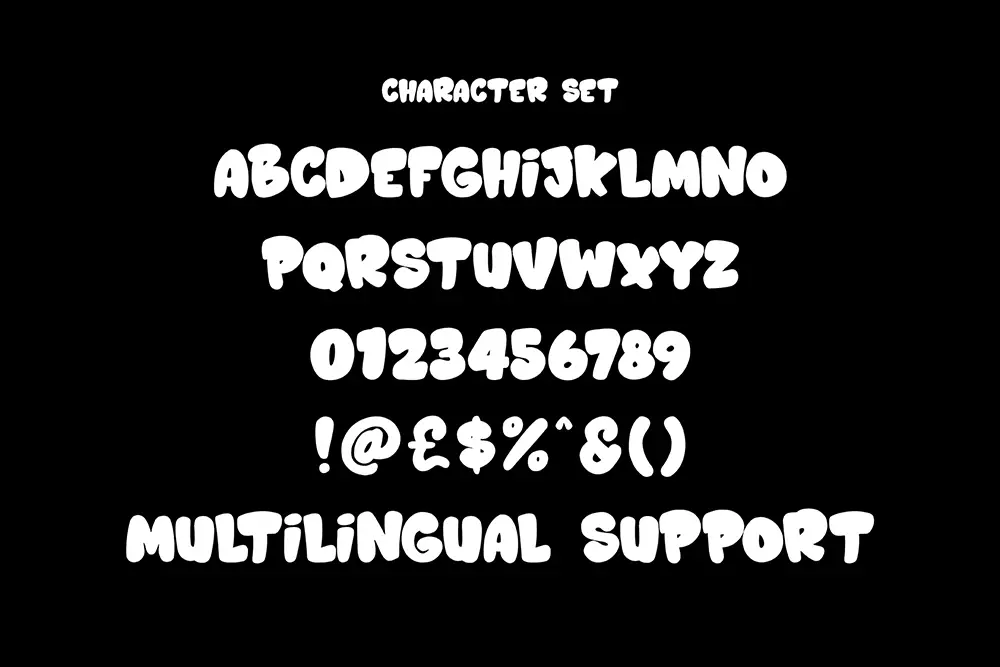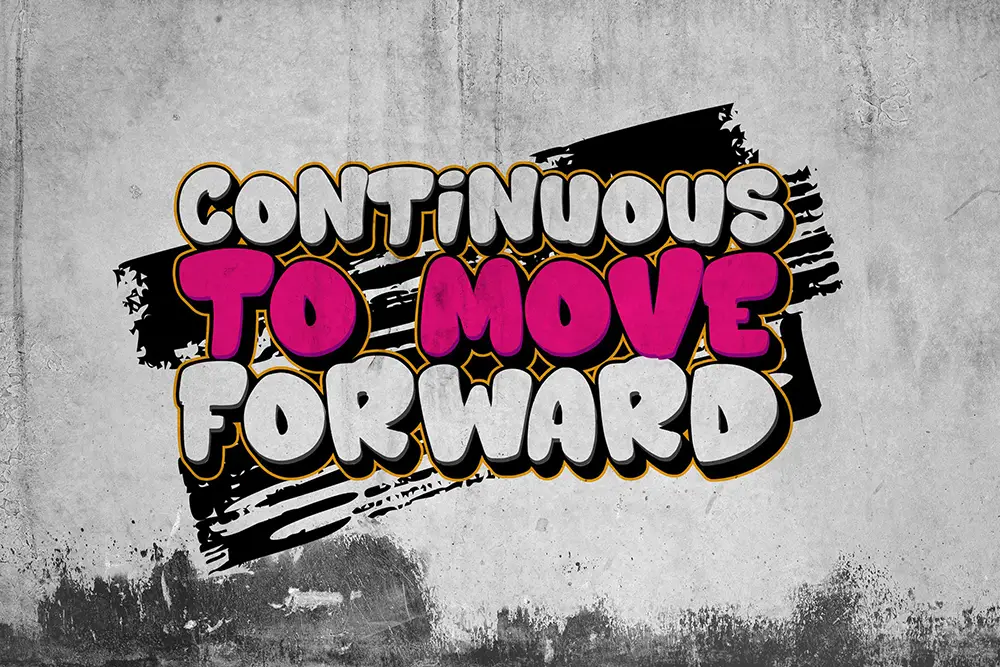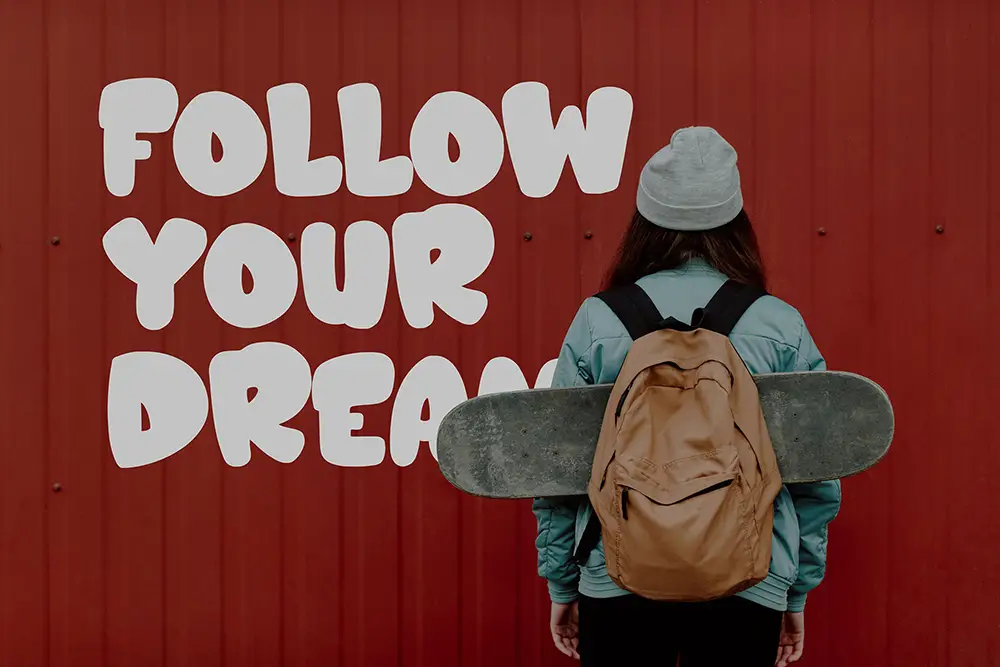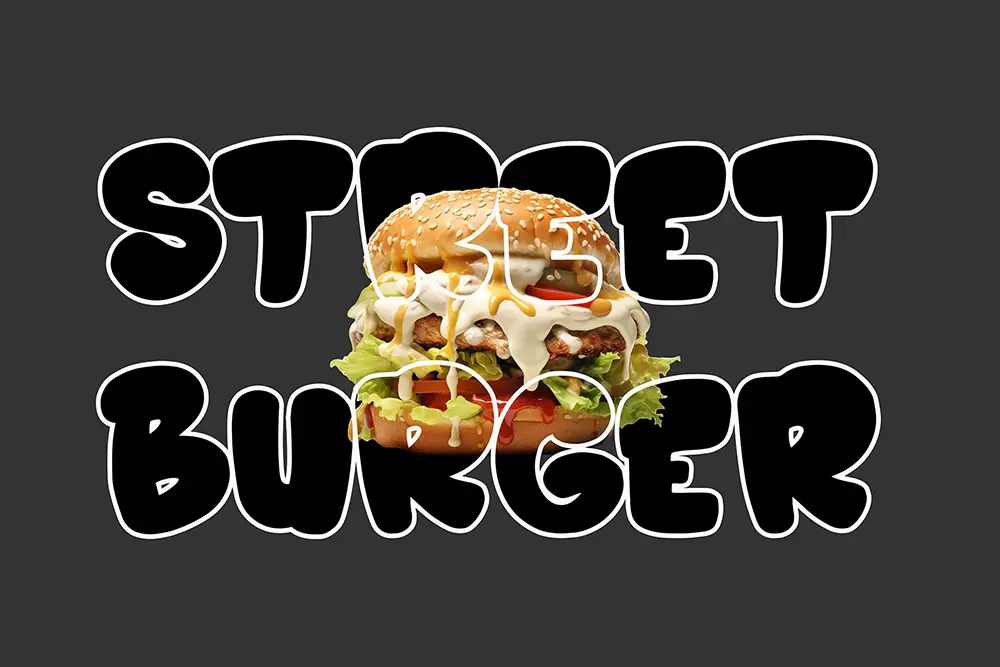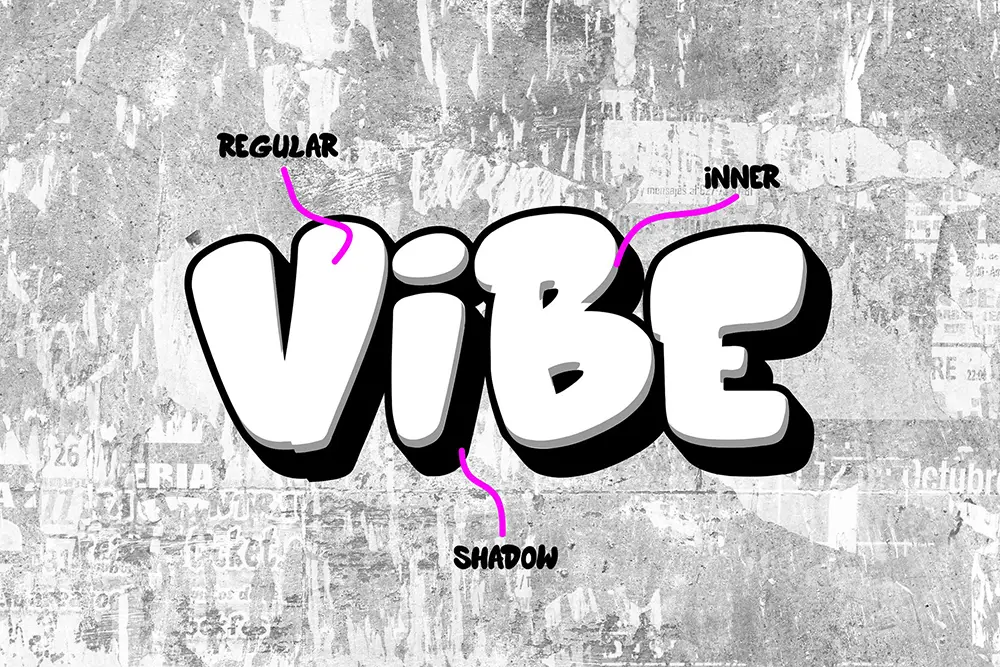
Rusted Vibe – Layered Graffiti Font for Bold Street Art Design
Typography is the heartbeat of urban design. Rusted Vibe – Layered Graffiti Font is built to bring raw energy, bold style, and layered creativity into your projects. With its unique three-layer system—Regular, Inner, and Shadow—this graffiti font gives designers the tools to create depth, vibrancy, and authentic street-inspired artwork.
This layered graffiti font isn’t just about letters; it’s about attitude. Perfect for posters, event flyers, music covers, and branding that demands attention, Rustic Vibe delivers the street-culture vibe in a professional, ready-to-use package.
Layered Graffiti Font with Raw Character
Graffiti is more than writing—it’s an art form that conveys rebellion, freedom, and creativity. Rustic Vibe captures this essence perfectly. As a layered graffiti font, it includes three versions: Rustic Vibe Regular, Rustic Vibe Inner, and Rustic Vibe Shadow. By combining these layers, you can build stunning 3D effects, highlights, and shadowed depth for maximum impact.
The all-caps design ensures boldness and uniformity, while multilingual support makes Rustic Vibe accessible for global creatives.
Key Features of Rusted Vibe – Layered Graffiti Font
Designers need fonts that not only look unique but also deliver professional usability. Rustic Vibe ticks all the boxes:
• All Caps Characters: Ensures bold impact across posters and branding.
• Multilingual Support: Extended Latin characters for international projects.
• Layered System: Combine Regular, Inner, and Shadow for dynamic graffiti effects.
• Urban Graffiti Style: Authentic street-inspired letterforms.
• Perfect for Large Displays: Ideal for posters, covers, murals, and event branding.
Why Designers Love Rusted Vibe
Designers choose Rustic Vibe because it captures the essence of graffiti while keeping it functional. This layered graffiti font allows for experimentation, energy, and adaptability.
Here’s why it’s a favorite:
• Authentic Vibe: Brings street culture into professional design projects.
• Creative Freedom: Layered styles provide endless customization options.
• Versatility: From posters to logos, it adapts to multiple contexts.
• Perfect Pairing: Works beautifully with expressive brush fonts like The Brother Hoops.
Rusted Vibe for Posters and Event Flyers
Posters and flyers thrive on bold design, and Rustic Vibe excels here. As a layered graffiti font, its street-inspired strokes dominate large canvases, making it ideal for concerts, urban festivals, and creative campaigns. The layered system adds a 3D touch, ensuring that headlines leap off the page.
Rusted Vibe for Logos and Branding
Logos often define a brand’s personality, and Rustic Vibe injects energy into that identity. Its layered graffiti font style is perfect for brands targeting youth culture, music, urban apparel, or creative startups. When combined with layered shadow effects, Rustic Vibe creates a modern graffiti-inspired logo that feels authentic yet professional.
Rusted Vibe for Digital Media and Social Campaigns
Social media thrives on visuals that are bold and eye-catching. Rustic Vibe delivers just that. This layered graffiti font makes Instagram posts, YouTube covers, and TikTok graphics stand out instantly. Its strong urban aesthetic resonates with younger audiences, making it ideal for campaigns targeting creativity, rebellion, and modern street culture.
• Character Set: All Caps, Numbers, Punctuation
• Category: Layered Graffiti Font
• Best Uses: Posters, Logos, Event Flyers, Social Media, Branding
Font Pairing Suggestions
Rusted Vibe pairs perfectly with expressive, brush-based typefaces. Try it with The Brother Hoops to balance bold graffiti strength with classy brush lettering. Together, they create dynamic, expressive designs perfect for urban branding and creative campaigns.
Why Rusted Vibe is the Graffiti Font You Need
Typography trends are embracing fonts that feel raw, authentic, and bold. Rustic Vibe embodies all of these traits, making it a must-have layered graffiti font for modern designers. Its versatility across print and digital media ensures that you can use it in any project that needs an energetic, street-inspired edge.
Rusted Vibe – Layered Graffiti Font is not just a typeface—it’s a design experience. With its layered system, all-caps strength, and multilingual support, it brings professional functionality to authentic street culture. Whether you’re designing posters, logos, or digital campaigns, Rusted Vibe ensures your work is bold, creative, and unforgettable.